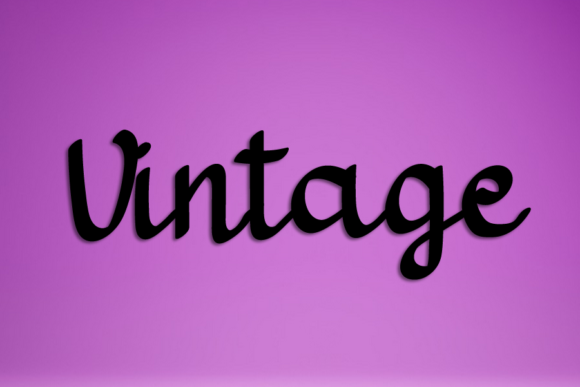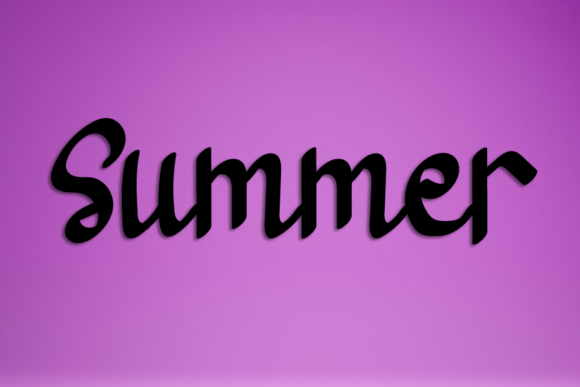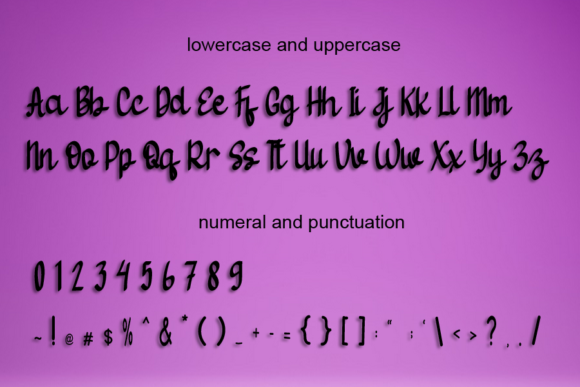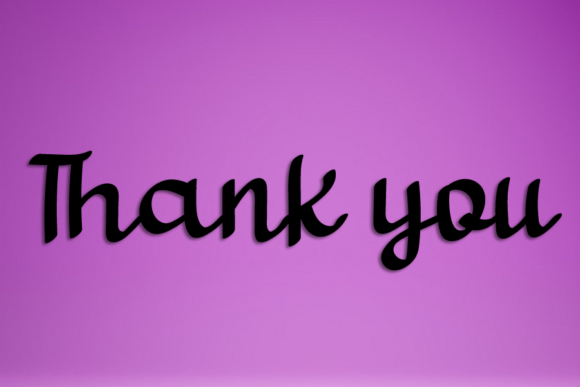
Introducing Angga Font: The Exquisite Handwritten Font for Your Creative Projects
Are you tired of using the same old fonts for your designs? Look no further! Angga Font is here to revolutionize your creative projects with its unique blend of classic calligraphic influences and modern freshness. In this article, we’ll dive into the world of Angga Font, exploring its features, benefits, and uses, and discover why it’s becoming a favorite among designers and crafters.
What is Angga Font?
Angga Font is a beautifully crafted handwritten font, designed to add a touch of elegance and sophistication to your projects. With its delicate strokes and refined lines, Angga exudes a sense of luxury and style, making it perfect for a wide range of applications, from branding and advertising to packaging and digital media.
The Inspiration Behind Angga Font
Angga Font’s design is rooted in traditional calligraphy, with a modern twist. The font’s creator aimed to capture the essence of classic calligraphic scripts, while infusing it with a fresh and contemporary feel. The result is a font that feels both timeless and modern, making it versatile enough to be used in various design contexts.
Key Features of Angga Font
- Exquisite Handwritten Style: Angga Font boasts a beautiful, handwritten aesthetic that adds a personal touch to your designs.
- Classy Calligraphic Influences: The font’s classic roots are evident in its elegant strokes and refined lines.
- Contemporary and Fresh: Angga’s modern twist makes it perfect for designers looking for a font that’s both stylish and current.
- Highly Versatile: Use Angga Font in a variety of projects, from logos and branding to social media graphics and digital media.
Benefits of Using Angga Font
So, why choose Angga Font for your projects? Here are just a few benefits:
- Adds a Touch of Elegance: Angga Font’s sophisticated design elevates your projects, making them stand out from the crowd.
- Enhances Brand Identity: Use Angga Font to create a cohesive brand image that exudes luxury and refinement.
- Perfect for Creative Projects: Whether you’re a designer, crafter, or DIY enthusiast, Angga Font is the perfect choice for adding a personal touch to your work.
How to Use Angga Font in Your Projects
Angga Font is incredibly versatile, making it suitable for a wide range of applications. Here are some ideas to get you started:
- Branding and Logo Design: Use Angga Font to create a stunning logo that reflects your brand’s personality.
- Social Media Graphics: Add a touch of elegance to your social media posts and stories with Angga Font.
- Packaging Design: Elevate your product packaging with Angga Font’s sophisticated design.
- Digital Media: Use Angga Font in your digital projects, such as e-books, presentations, and videos.
| Font Name | Angga Font |
| Author | Alfa studio |
In conclusion, Angga Font is a true gem in the world of typography. Its exquisite handwritten style, combined with its classy calligraphic influences and modern freshness, make it the perfect choice for designers and crafters looking to elevate their projects. With its versatility and range of applications, Angga Font is sure to become a favorite among creative professionals. So, fall in love with Angga Font and bring your projects to the highest levels!